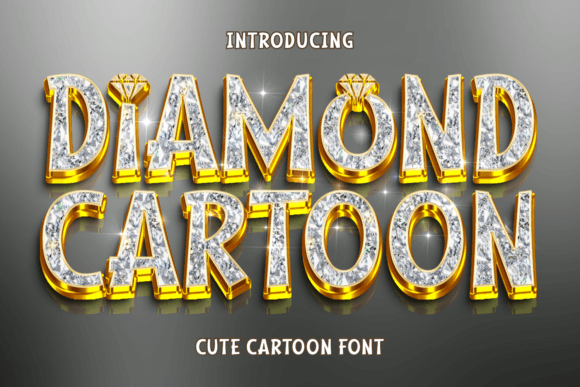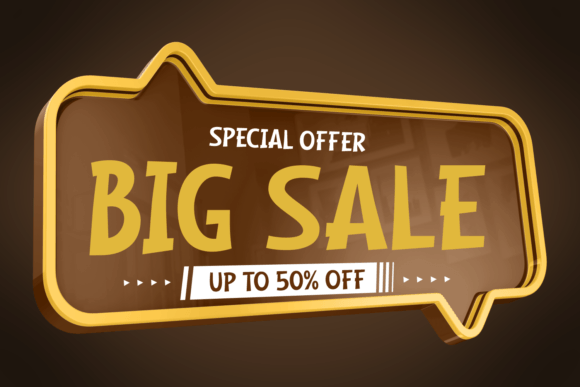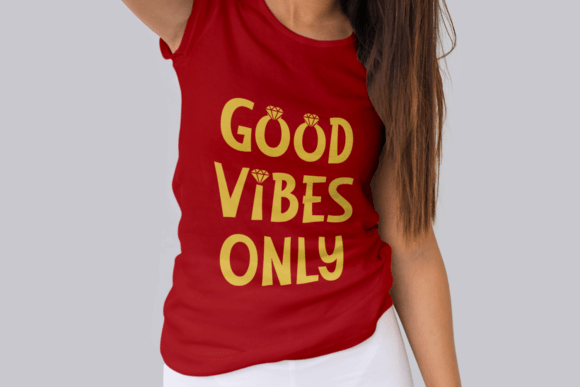
Diamond Cartoon Font
Diamond Cartoon a is a cute and charming display font. Its comic font and comic book nuances lend it an air of fun, making it the ideal choice for injecting a bit of lightheartedness into your projects.
The Diamond Cartoon is also a perfect embodiment of a kids font, with its bold and playful aesthetics. Yet, its power cannot be denied; it exudes a strong aura that captures attention and mesmerizes the audience. A trendy addition to any design toolkit, this diamond font shines brilliantly amidst its contemporaries.
The Diamond Cartoon excels when used as a product font, immediately elevating any design it’s part of. Imagine it sprawled across a stylish t-shirt or gently accenting a piece of high-end jewelry. A font that embodies charm, power, and versatility.